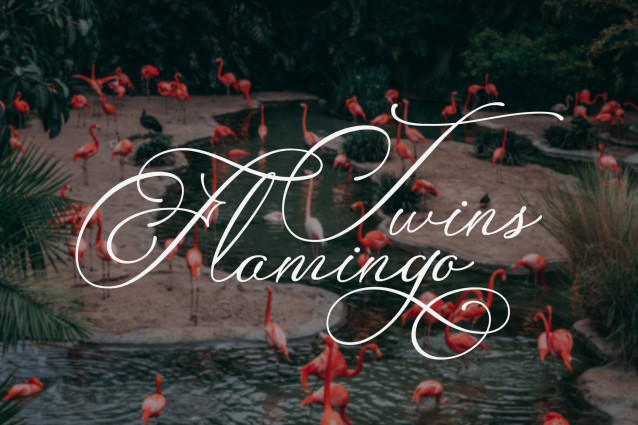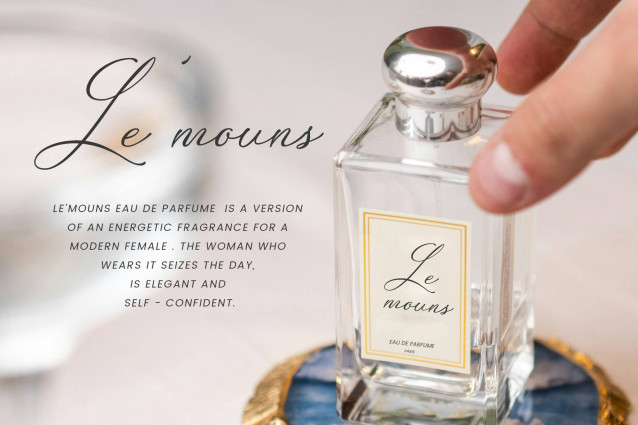
Fingline Font
Fingline Font is a timeless and elegant script font that exudes sophistication and grace. Its delicate strokes and flowing curves create a sense of luxury and refinement. Perfect for wedding invitations, logos, and other high-end designs.